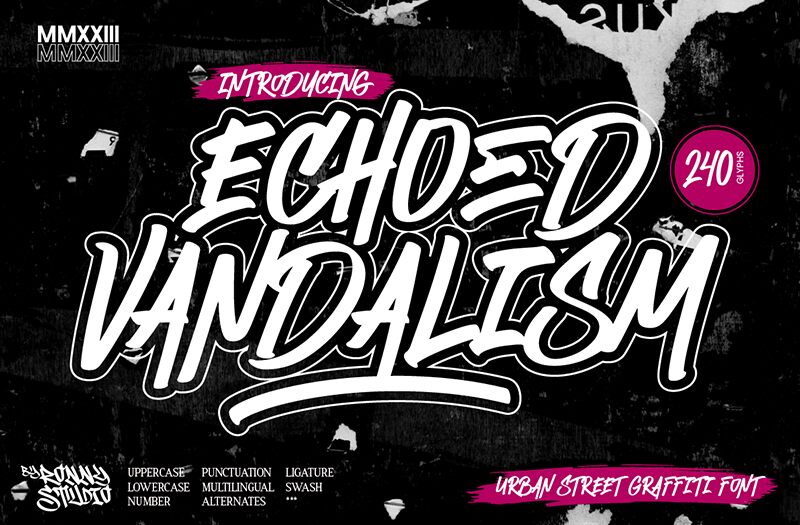
Echoed Vandalism font from Ronny Studio is a vintage graffiti-inspired typeface that embodies urban energy and expressive flair. Its rugged designs carry an impact at first sight of any reader. Clean and authentic with each sharp character, the font holds a strong consistent presence that can be perceived in any project placement.
The graffiti font is used in game design, t-shirt designs, printed apparel merchandise, gig posters, album cover art (and back covers), video thumbnails, logos and branding businesses related to art as well as restyle shops. A free download gives you this urban writing style right under your fingertips!